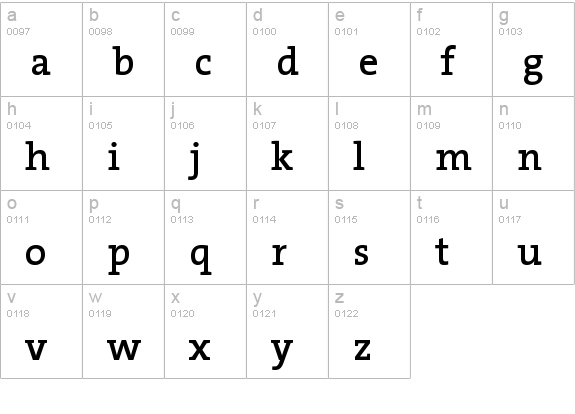
TheSerif SemiBold Plain Font Details
TheSerif SemiBold Plain is a sub-bold, structured variant in the TheSerif typeface family \xE2\x80\x94 well suited to sub-headlines and emphasised passages.
TheSerif SemiBold Plain font is a versatile and elegant typeface that offers a touch of sophistication to any design. With its clean lines and strong presence, this font is perfect for creating eye-catching headlines, branding materials, and editorial layouts. TheSerif SemiBold Plain font exudes a sense of authority and professionalism, making it ideal for corporate presentations, reports, and business communications. Its semi-bold weight strikes the perfect balance between boldness and subtlety, making it a reliable choice for conveying a strong and confident message. One of the standout features of TheSerif SemiBold Plain font is its versatility. It can effortlessly adapt to various design themes and styles, whether it be for modern and sleek interfaces or for more traditional and classic designs. Its clean and sharp outlines ensure legibility even at smaller sizes, making it suitable for both print and digital applications. TheSerif SemiBold Plain font is freely available to download at FontsMarket.com. This means that you can easily access and use this font for personal and commercial projects without any cost. Whether you are a professional designer looking to enhance your creative work or an individual in need of a stylish font for personal use, TheSerif SemiBold Plain font is a great choice. Don't miss out on the opportunity to elevate your designs with TheSerif SemiBold Plain font. Download it for free at FontsMarket.com and unlock a world of possibilities for your next project.